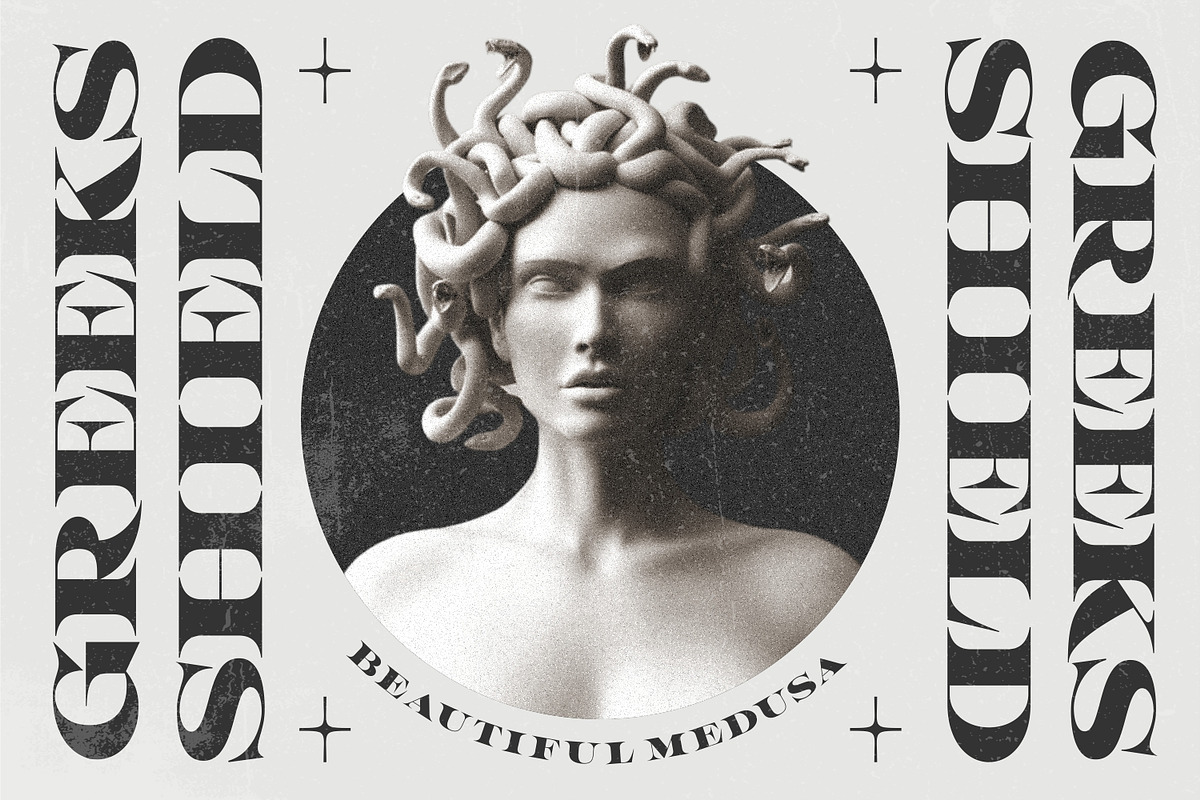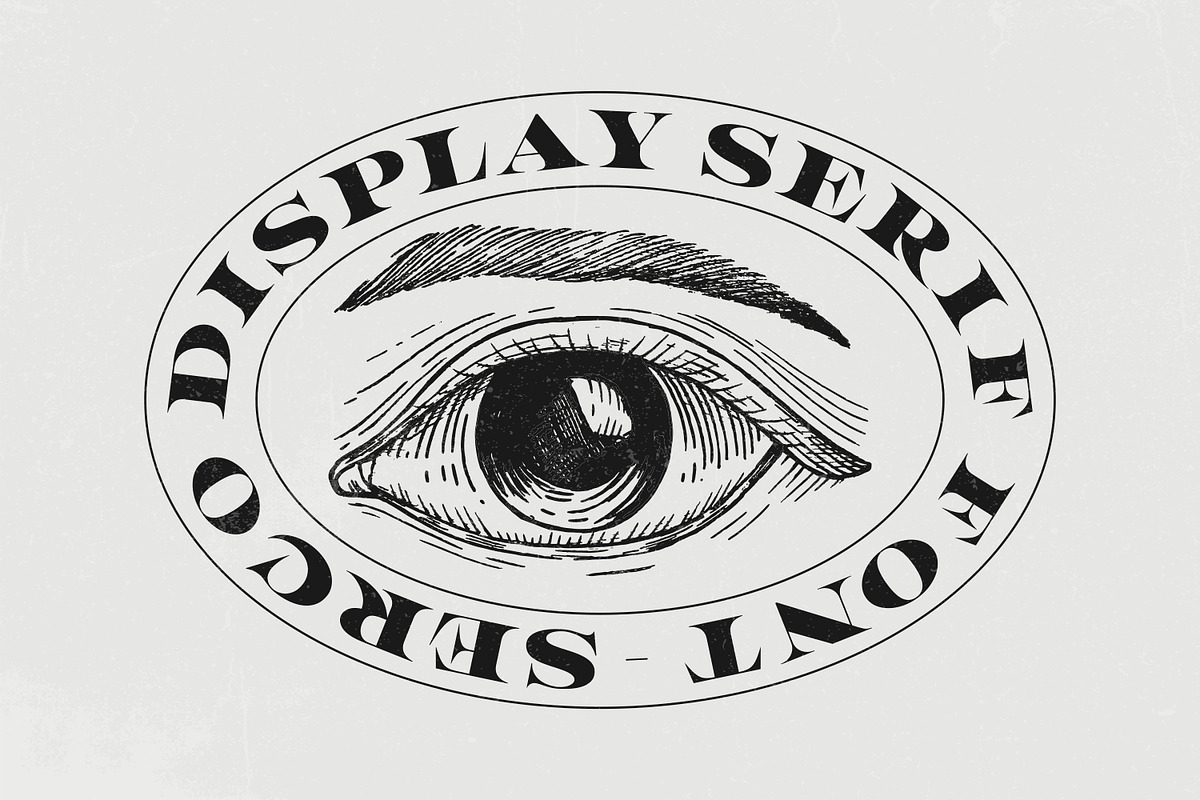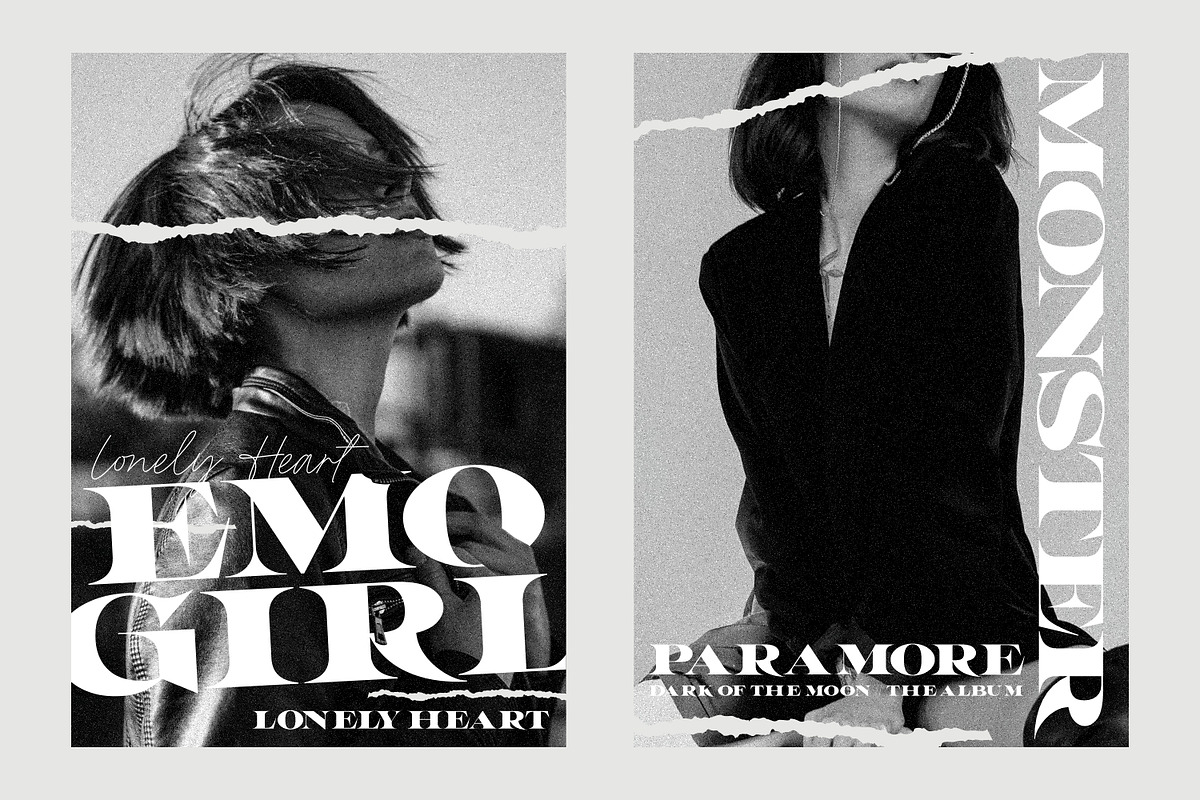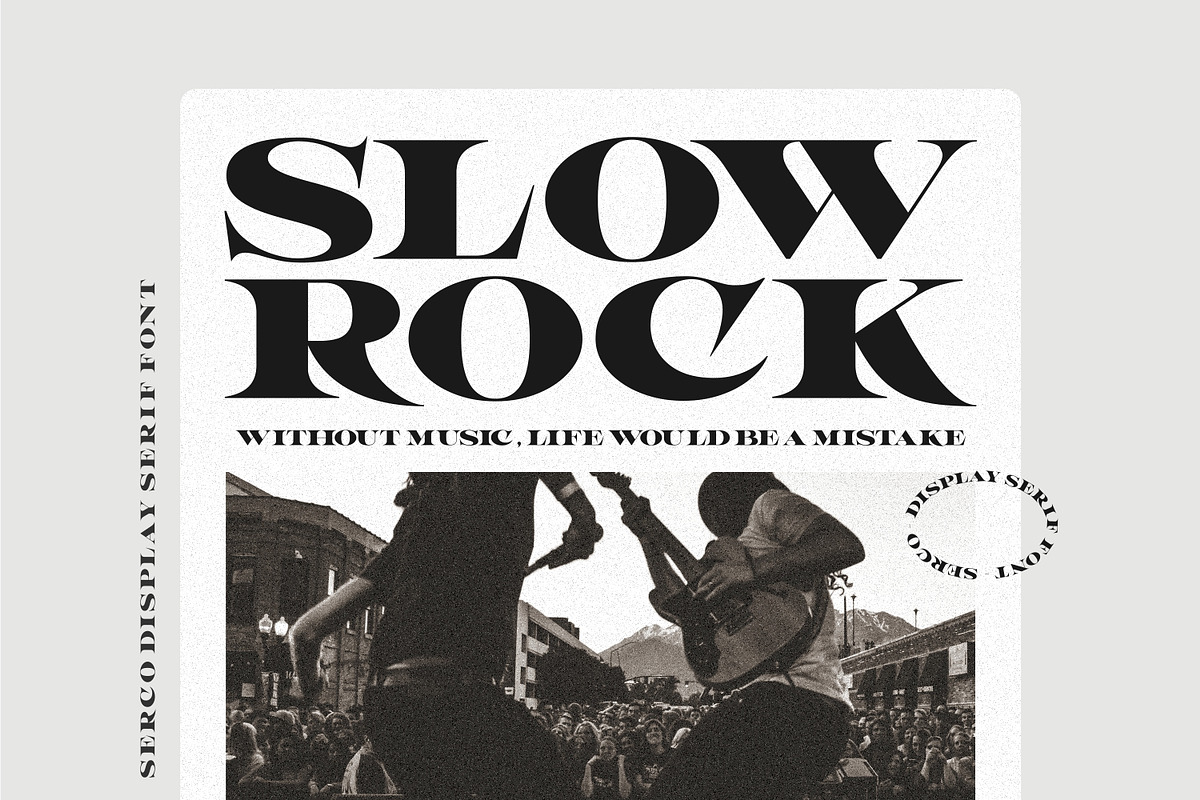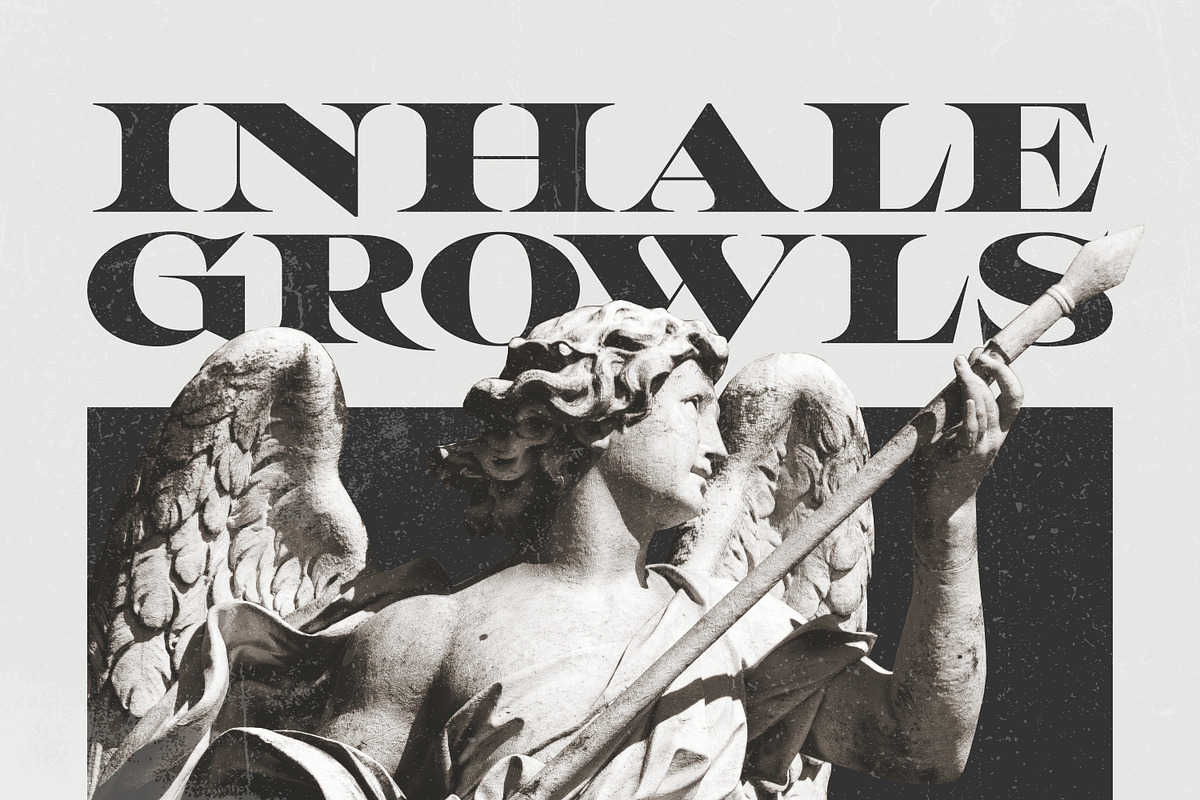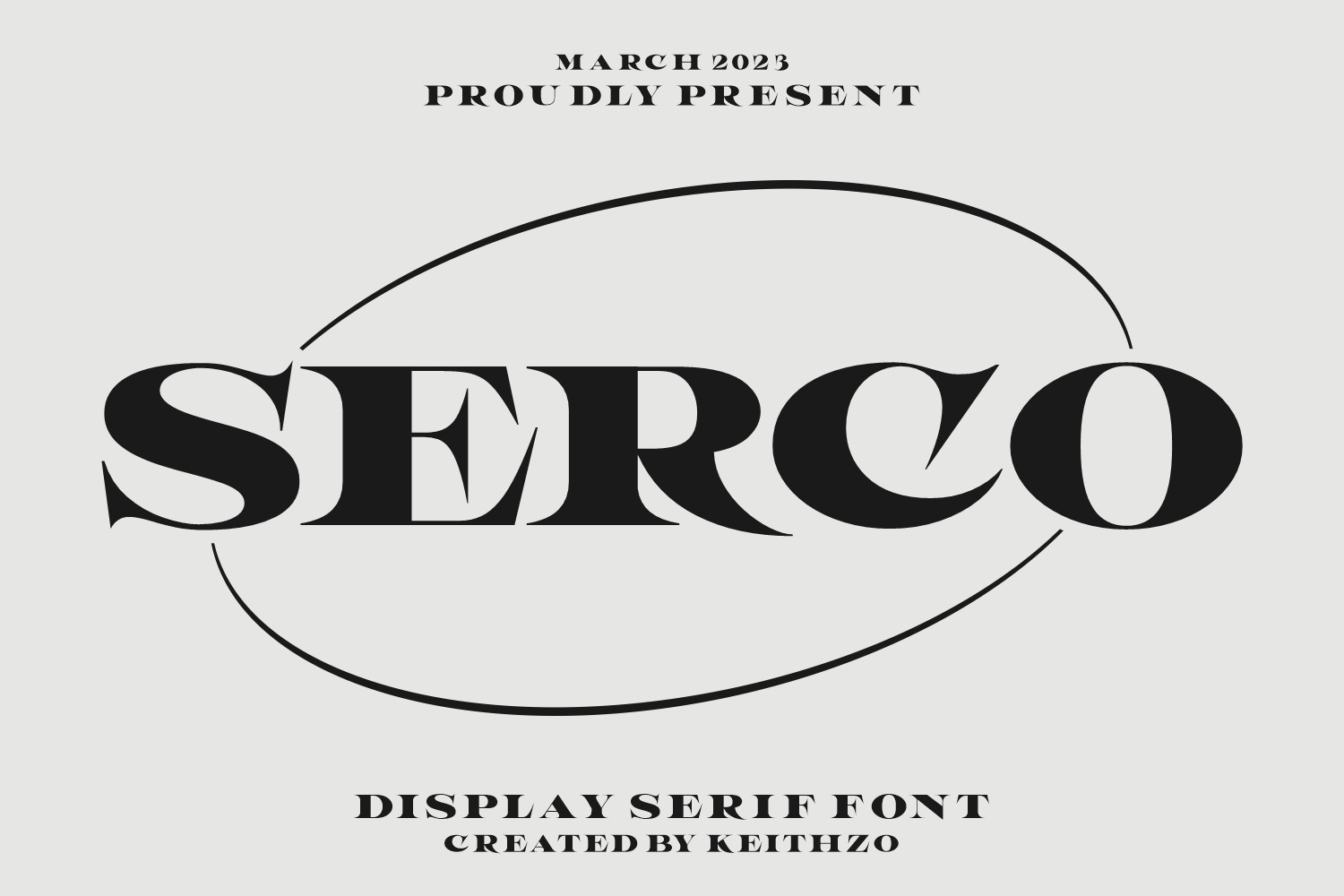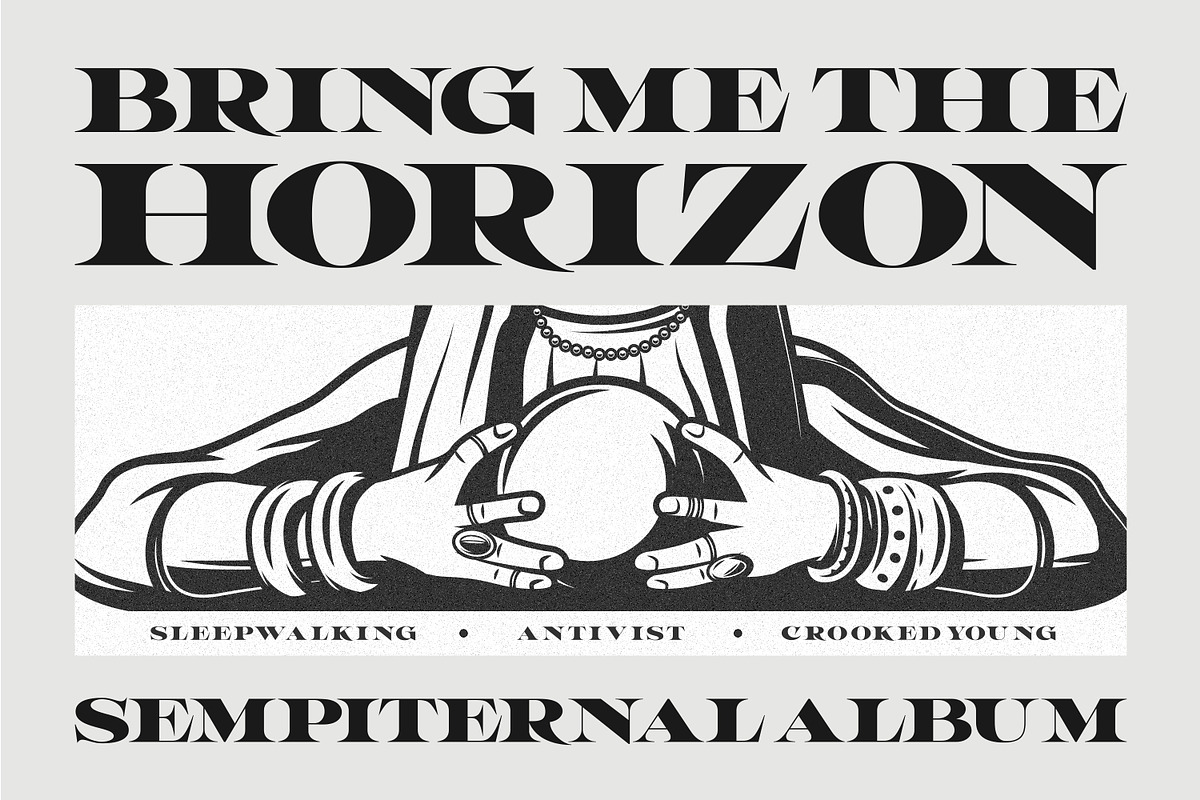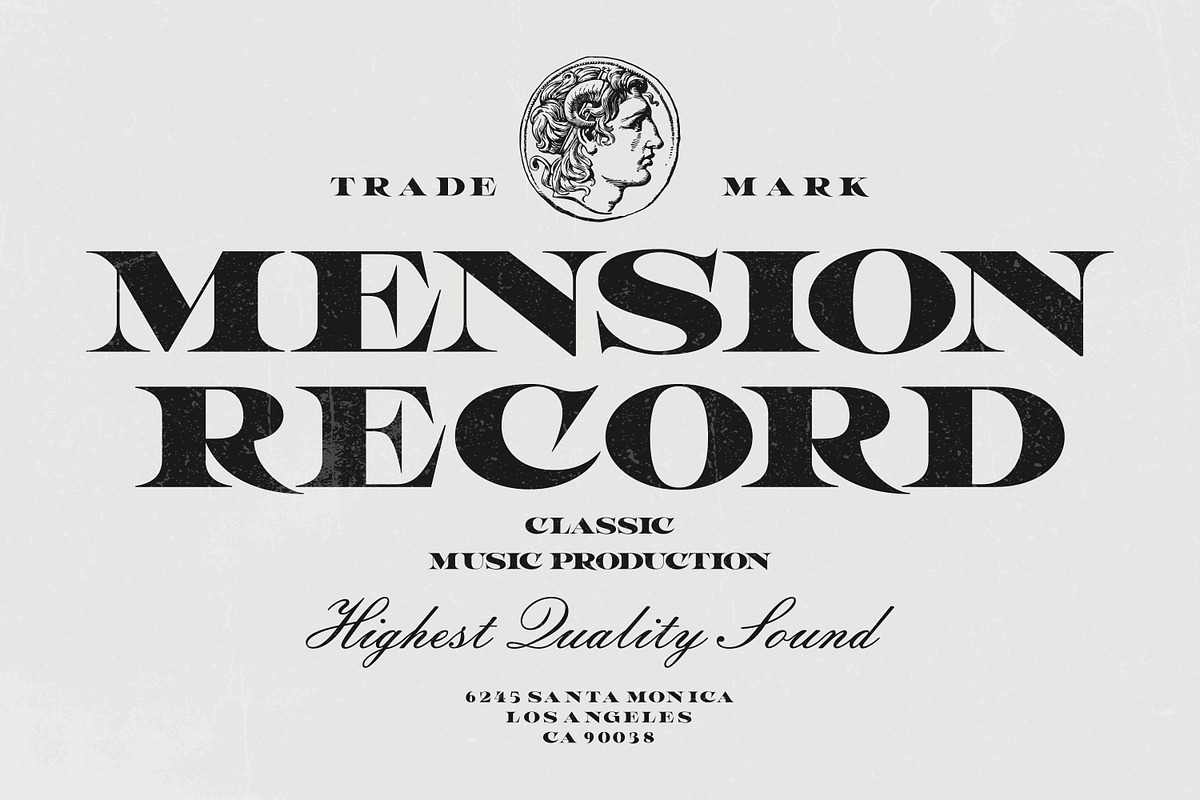
Serco - Display Serif Font
introducing display all-caps serif , Serco font is extremely versatile and is perfect for high-end logotypes and magazine headlines. serco inspired by Emo/metal/metalcore music scene and the hype street wear / apparel let alone greeting cards, invitations, posters, book covers, ads and the various web and screen usages.